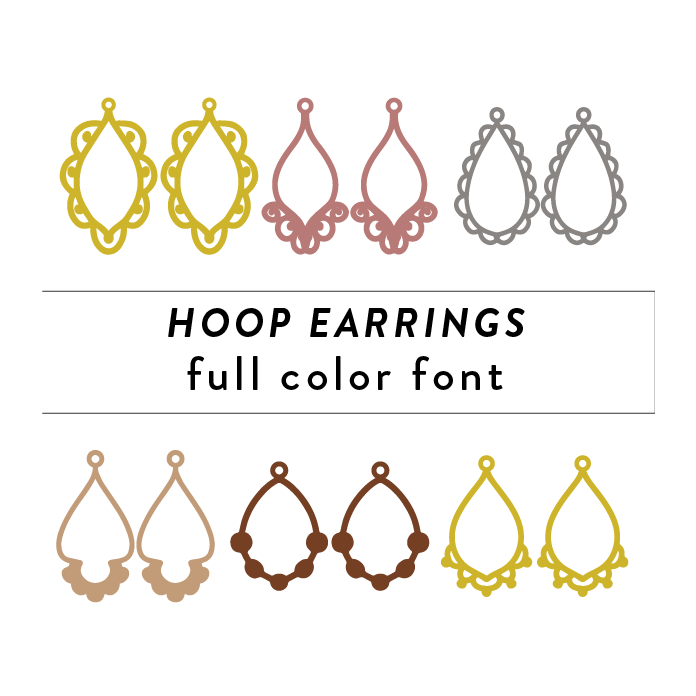
Hoop Earrings Full Color Font is a stylish and eye-catching decorative font that allows you to make a variety of fashionable earrings. Featuring vibrant colors and intricate details, this font adds a touch of glamour to any design project. This font is a OTF craft font that will appear in color only when used with the silhouette software.